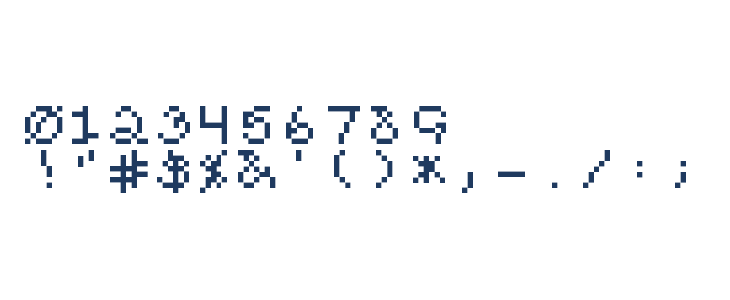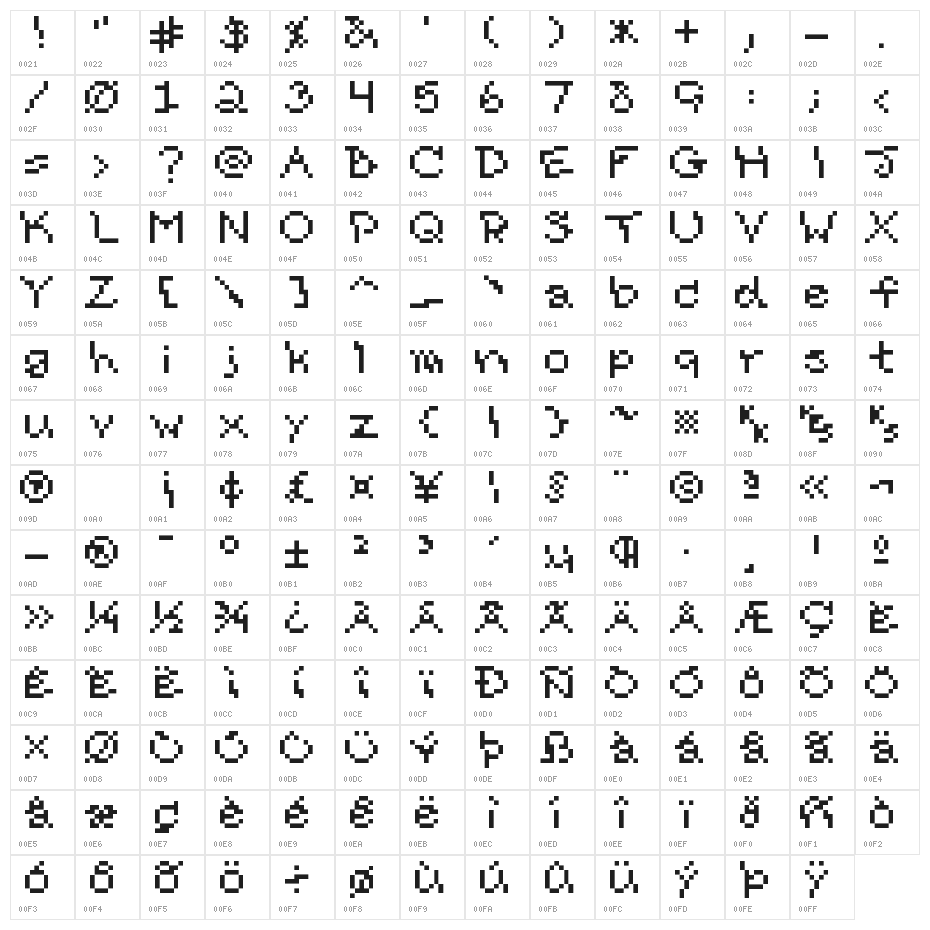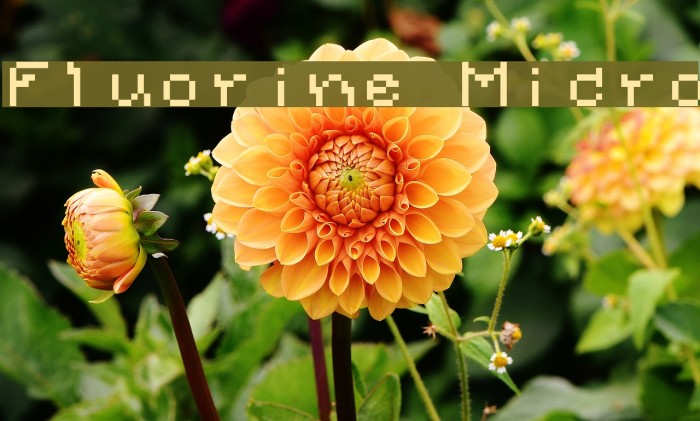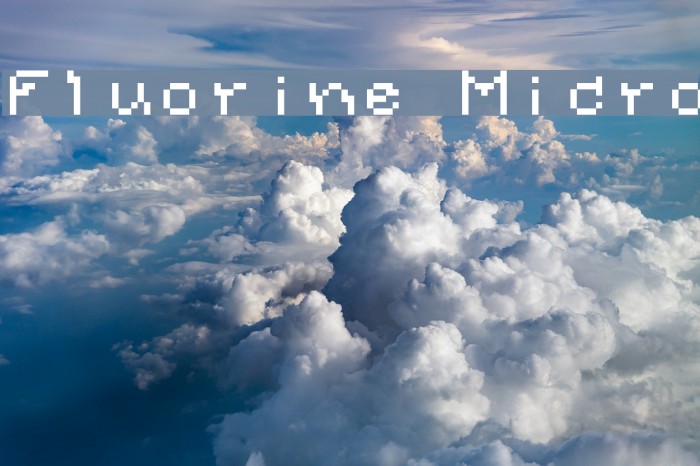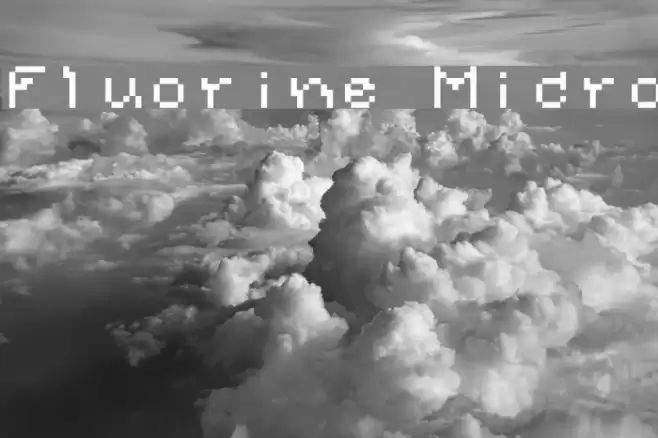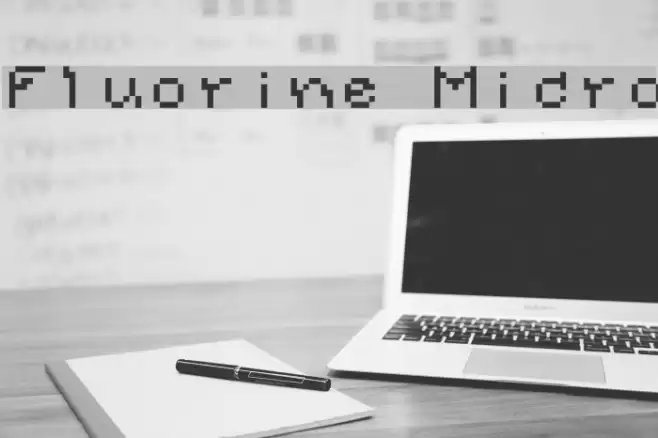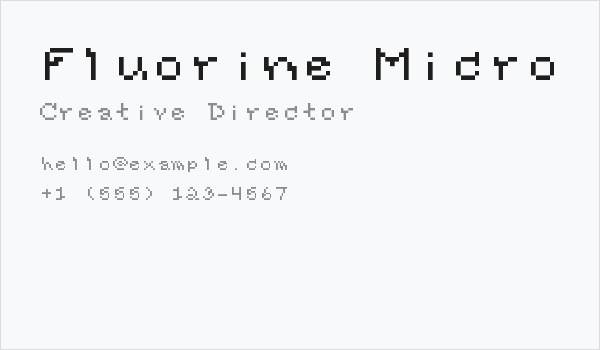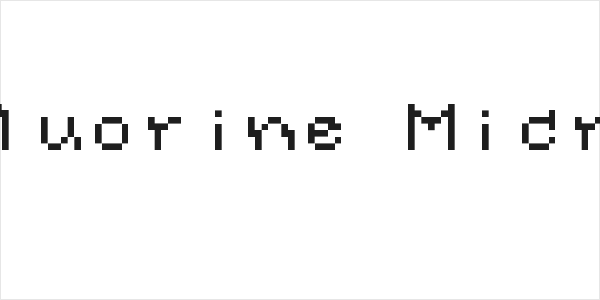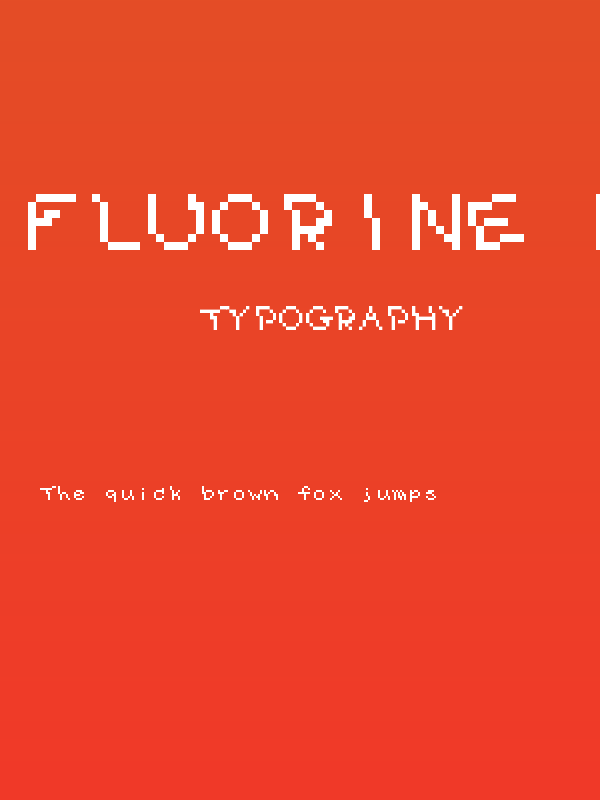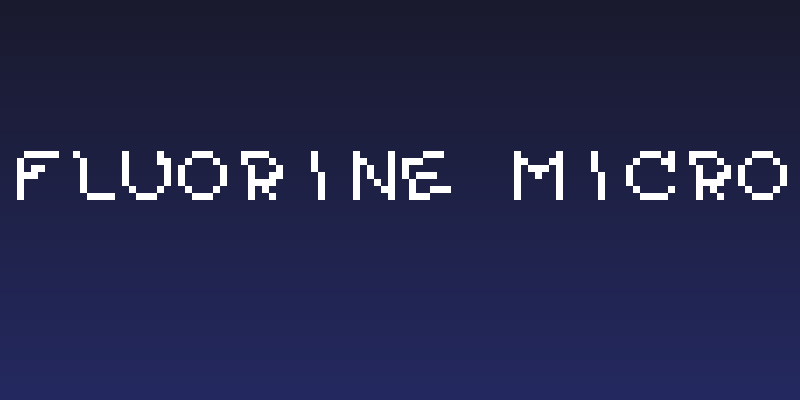
Fluorine Micro Font
Fluorine Micro Description
This font features a pixelated, grid-like design reminiscent of early digital displays and retro video games. Each character is composed of small, square blocks, creating a distinct, nostalgic aesthetic. The uppercase and lowercase letters maintain a consistent height, contributing to a uniform appearance. Numbers and special characters follow the same pixelated style, ensuring cohesion across all elements. The font's simplicity and geometric structure make it highly legible, even at smaller sizes, while its unique style adds a playful, vintage charm.
| Use Case | Logos, Headlines, Digital Art |
| Proposed Projects | Ideal for retro-themed designs, video game graphics, digital art projects, and any creative work seeking a nostalgic or playful touch. |